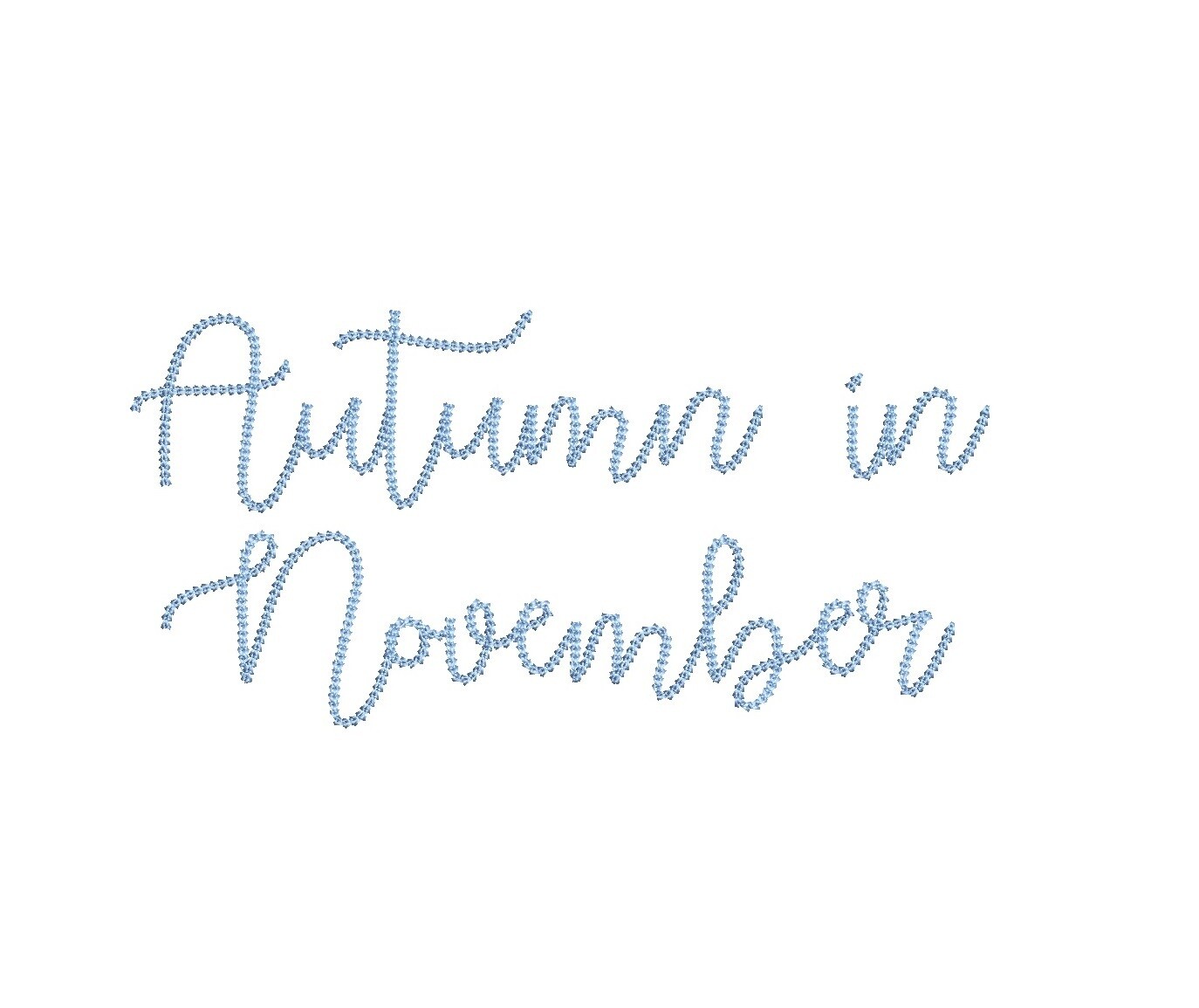
Experience the beauty of Autumn in November Chain Stitch ESA font – A perfect companion for Wilcom Studio e4.5.6 and Hatch 3 versions and above. Unlock your creativity with its mesmerizing chain stitch pattern and seamless compatibility with leading software. Effortlessly achieve professional designs that evoke the spirit of the season. Elevate your projects with the enchanting allure of Autumn in November Chain Stitch ESA font, ideal for fashion, home decor, and personalized gifts. Seamlessly integrate and optimize your embroidery endeavors. Embrace the future of embroidery design today and bring the essence of autumn to life with Autumn in November Chain Stitch ESA font.